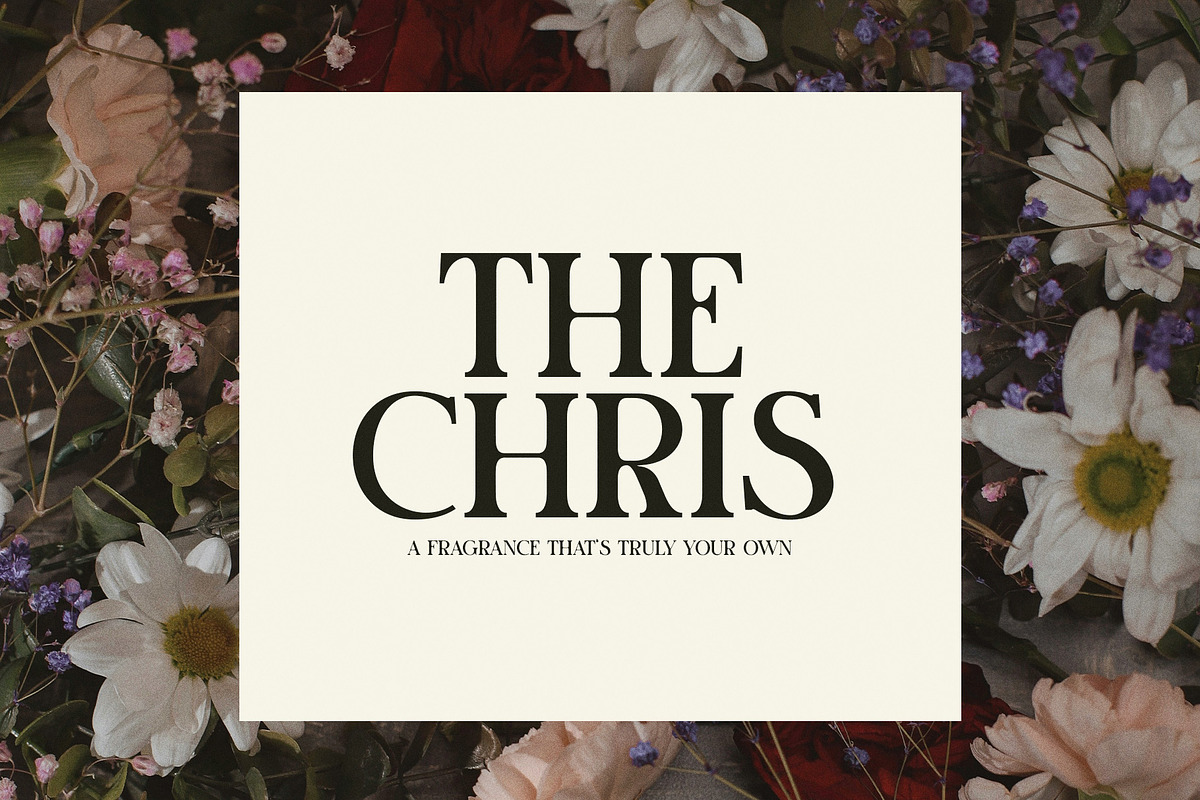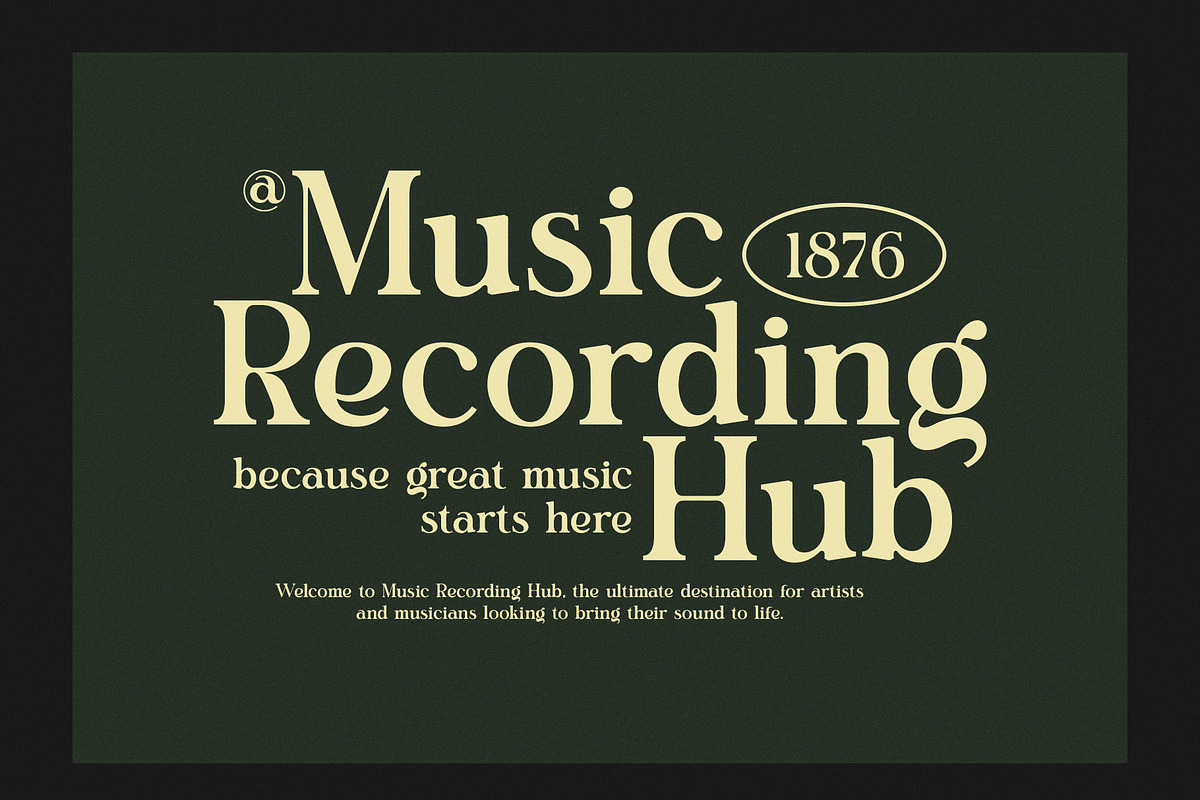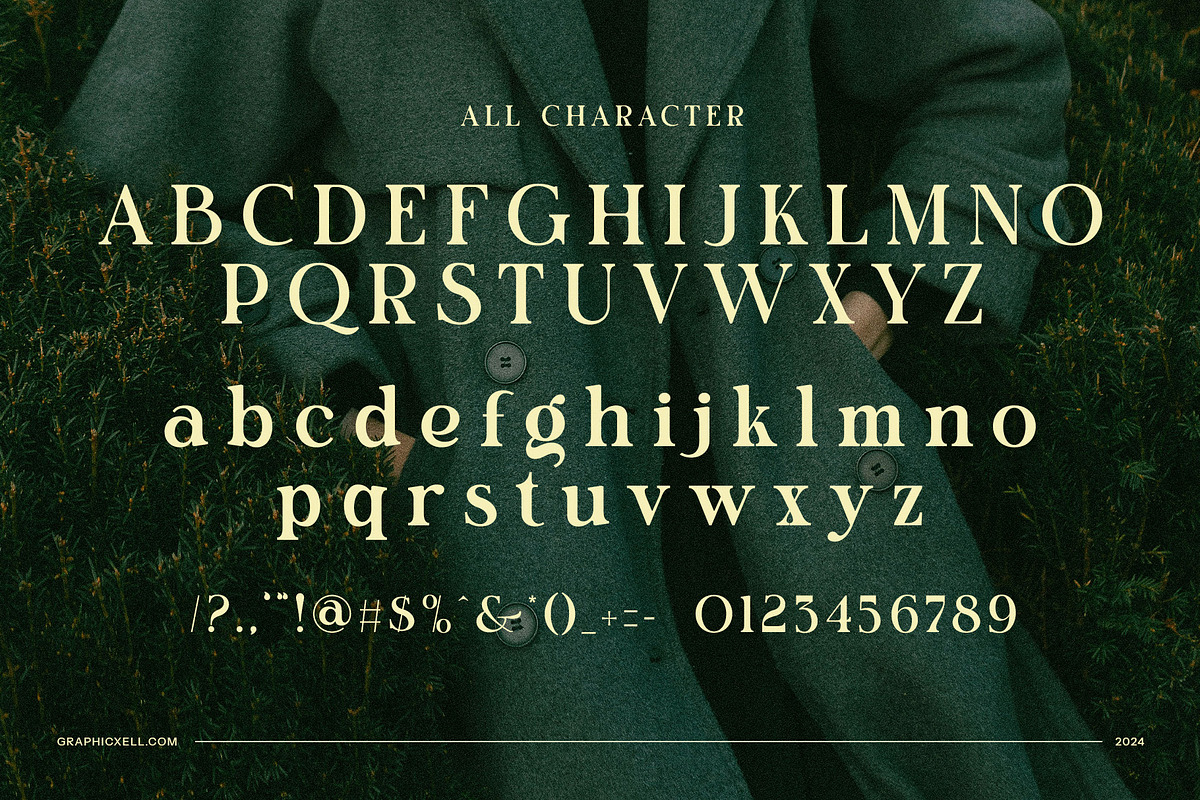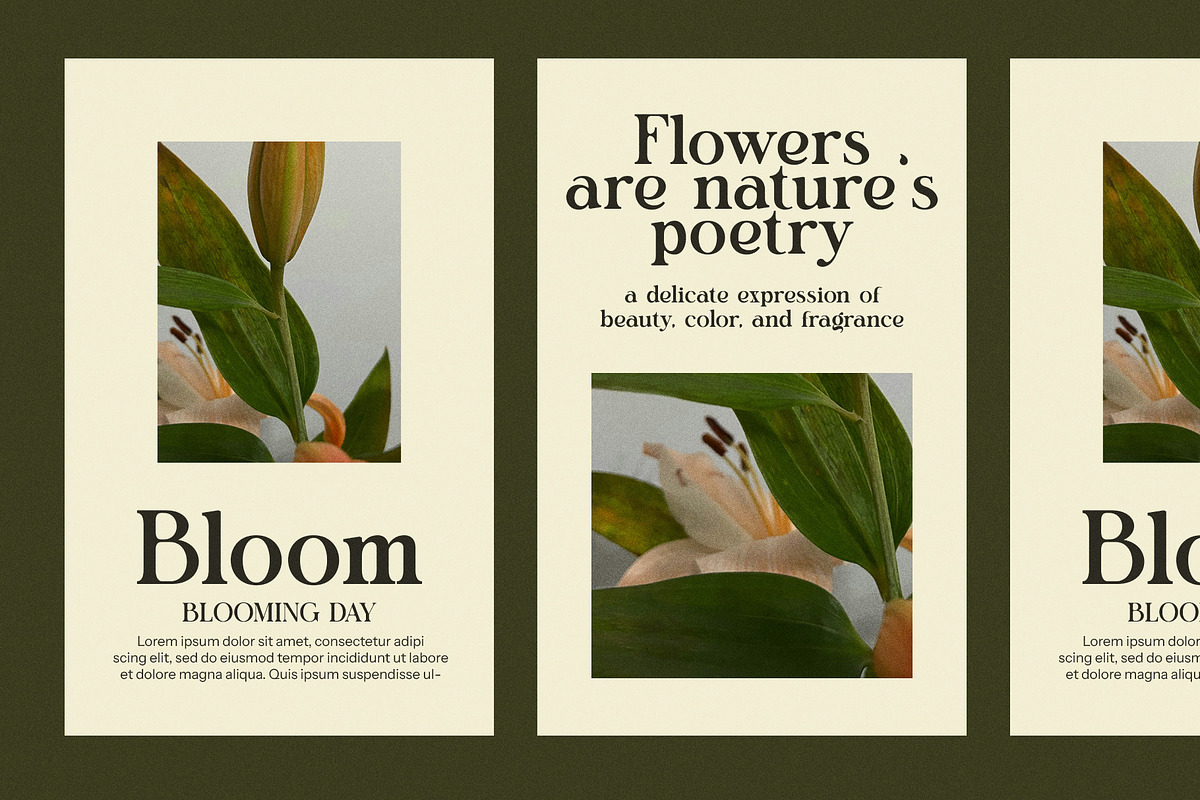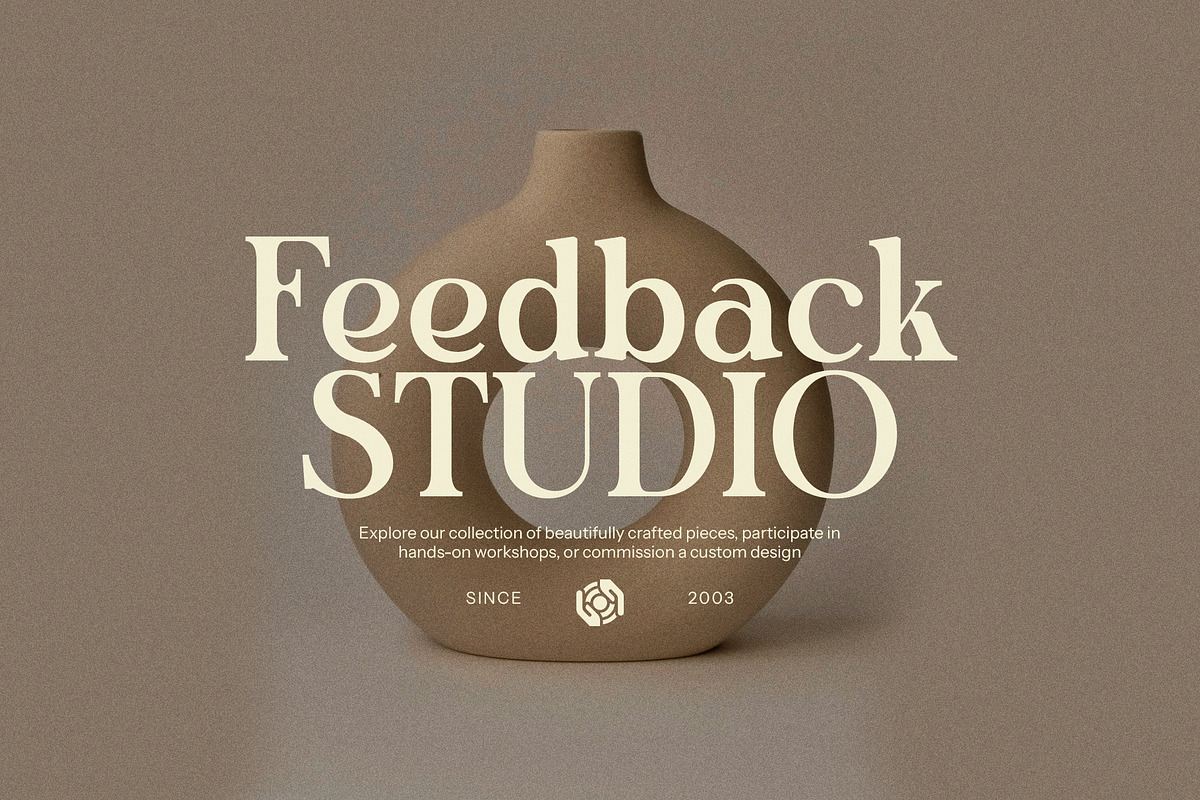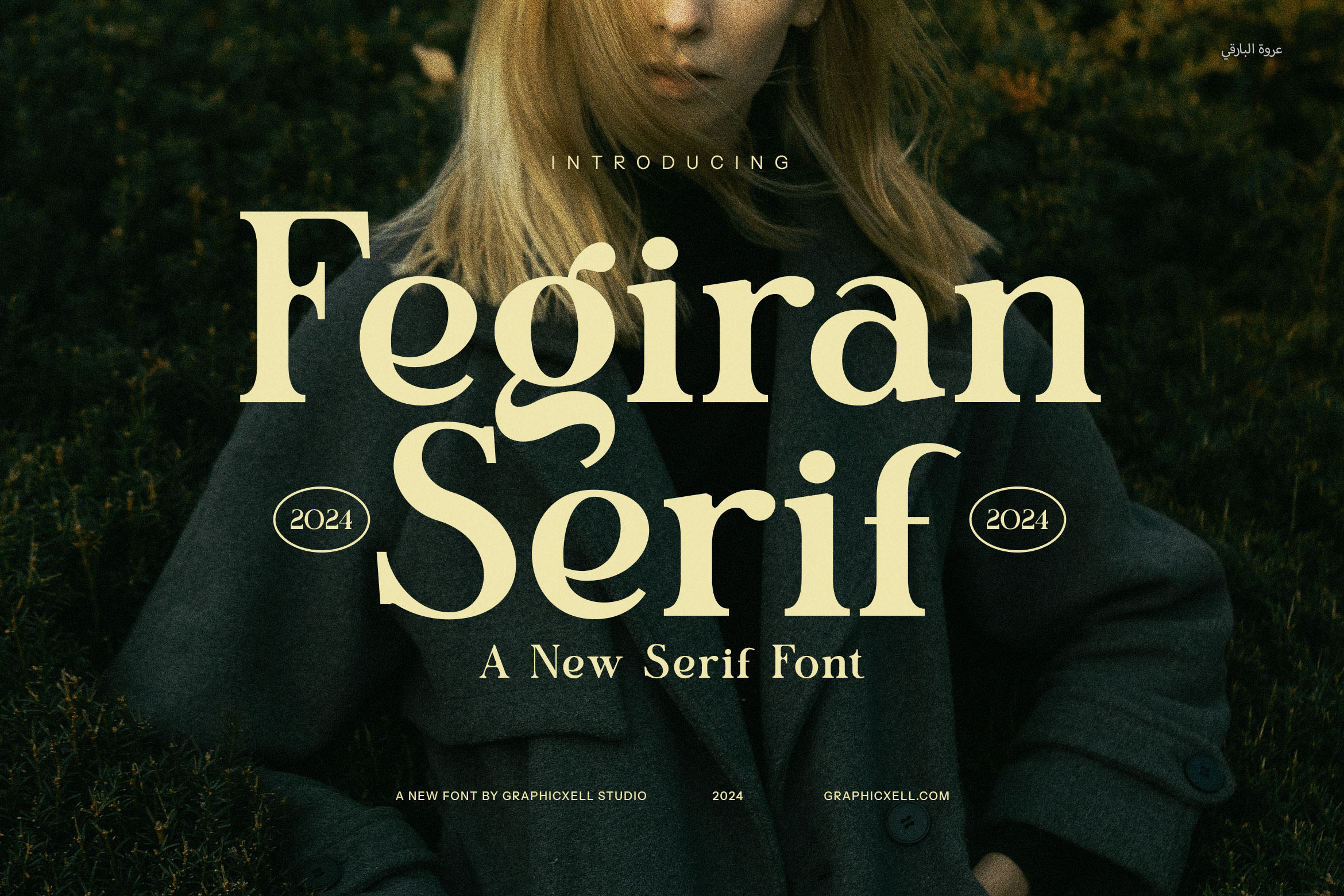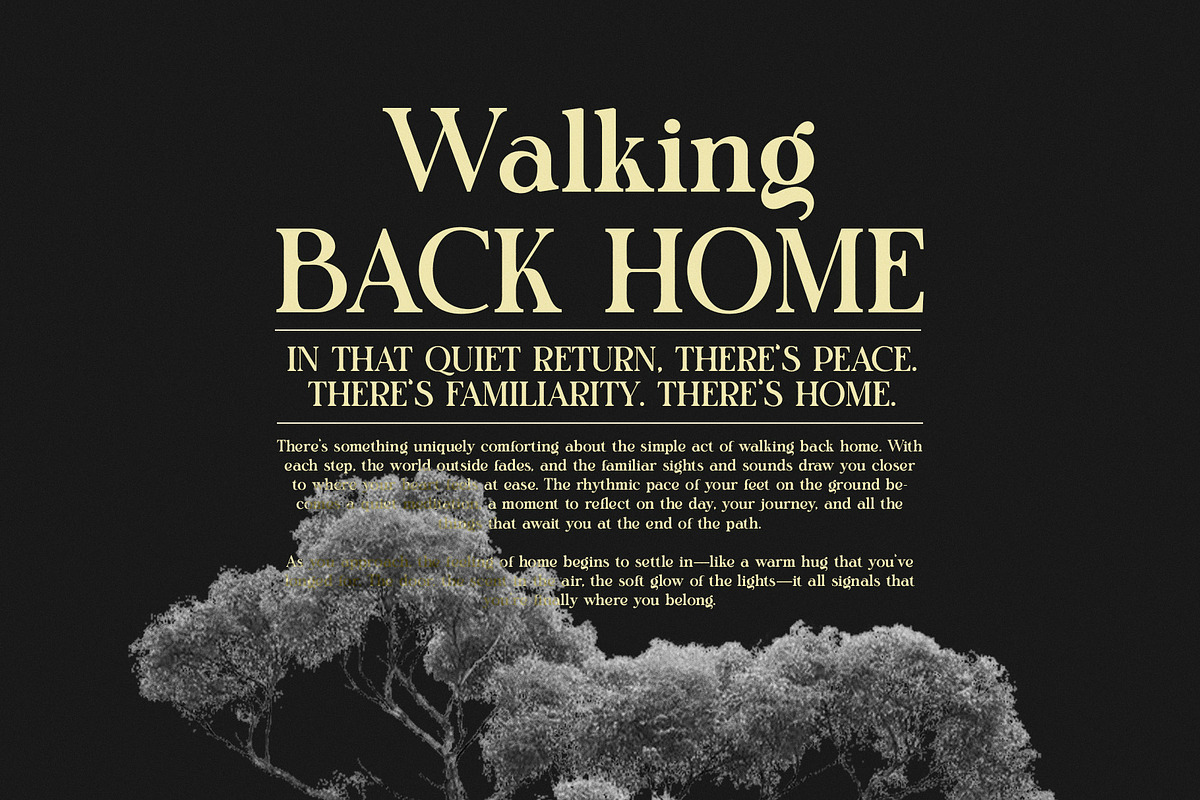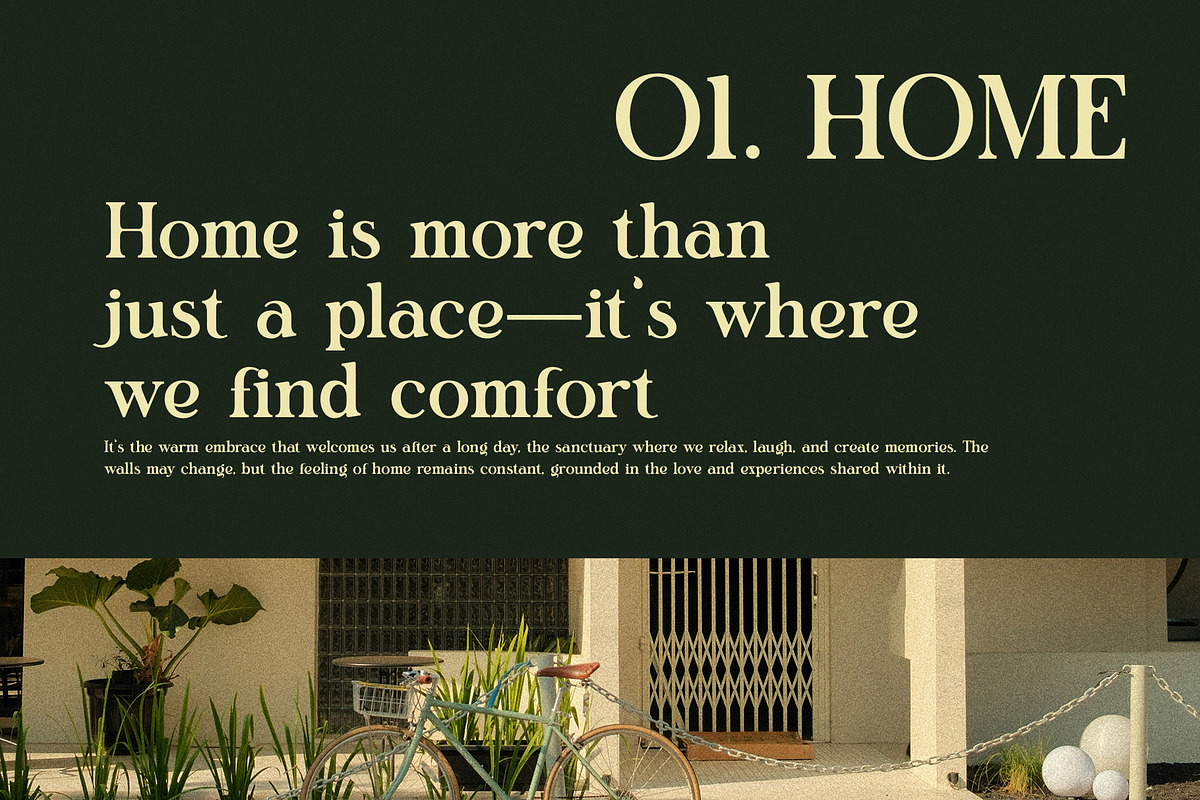
Fegiran Serif Font
Introducing Fegiran Serif Font, a stunningly modern serif typeface designed to bring elegance and sophistication to every project. With its gracefully balanced forms and artistic details, Fegiran captures attention and enhances your creative vision. Its distinctive design is complemented by beautifully crafted ligatures and versatile calligraphic alternatives, making it a go-to choice for projects that demand a luxurious yet approachable aesthetic.
Whether you’re creating logos, designing for high-end branding, or curating website layouts, Fegiran adds a timeless charm that sets your work apart. Perfect for magazine editorials, boutique advertisements, or packaging designs, this font radiates both professionalism and creativity. Its smooth curves and refined serifs offer exceptional legibility, even in detailed or intricate compositions.
Ideal for industries ranging from fashion and beauty to culinary and interior design, Fegiran blends seamlessly into both print and digital projects. Its modern yet classic appeal makes it versatile for everything from minimalist brand identities to ornate layouts. The inclusion of alternate characters and ligatures ensures endless customization options, empowering you to craft designs that are as unique as your vision.
Let Fegiran Serif Font elevate your work with its contemporary sophistication and unmatched versatility. Whether you're creating standout logos, stylish advertisements, or elegant product designs, this typeface will transform your projects into timeless masterpieces. Discover the perfect balance of beauty and functionality with Fegiran Serif Font, your new design essential.